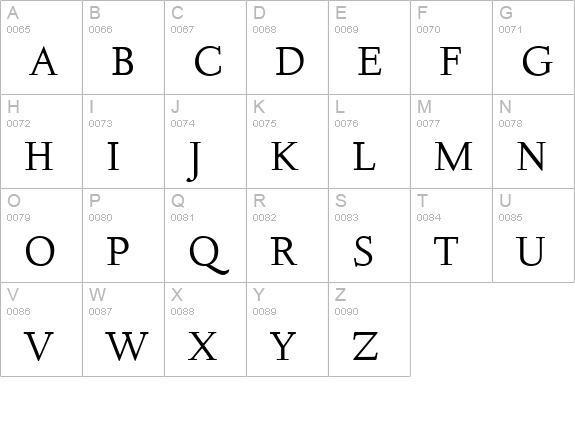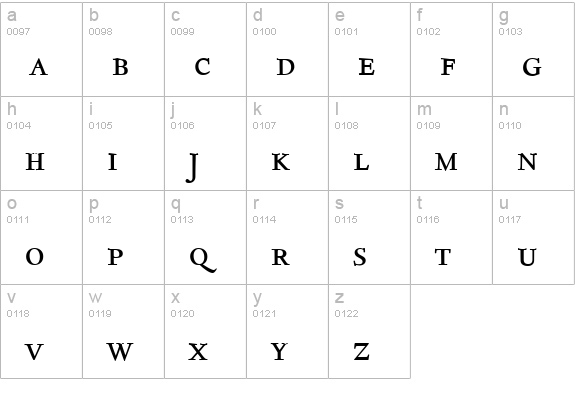
D690-Roman-Smc-Regular is the standard, neutral variant in the D690 typeface family \xE2\x80\x94 well suited to general body text, paragraphs, and standard typographic work.
The D690-Roman-Smc-Regular font is a classic and elegant typeface that exudes sophistication and timeless appeal. Its clean lines and balanced proportions make it ideal for a wide range of design projects, from branding to editorial design. This font features a traditional Roman style with a modern touch, making it versatile and suitable for various applications. What sets the D690-Roman-Smc-Regular font apart is that it is not only visually appealing but also free to use. Yes, you read that right - this high-quality font is freely available for download at FontsMarket.com. Whether you are a designer looking to elevate your projects or a business in need of a stylish typeface, the D690-Roman-Smc-Regular font is a fantastic choice that won't cost you a penny. Download it today and enhance your designs with this beautiful and versatile font.